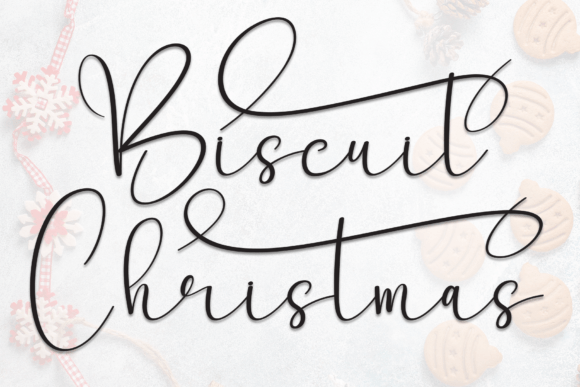
Biscuit Christmas Font: A Stylish and Nostalgic Handwritten Font for Your Holiday Designs
Are you looking for a font that can add a touch of nostalgia and style to your holiday designs? Look no further than the Biscuit Christmas font. This gorgeous and bold handwritten font is crafted to give your headlines and logotype projects a stylish touch. In this article, we’ll take a closer look at the Biscuit Christmas font, its features, and how you can use it to elevate your holiday designs.
What is Biscuit Christmas Font?
Biscuit Christmas is a bold and stylish handwritten font that is perfect for adding a touch of nostalgia to your designs. The font is designed to read as strong, confident, and dynamic, making it perfect for headlines and logotype projects. With its unique and elegant lettering style, Biscuit Christmas is sure to make your designs stand out from the crowd.
Features of Biscuit Christmas Font
The Biscuit Christmas font comes with a range of features that make it perfect for holiday designs. Some of its key features include:
- Bold and stylish lettering: The Biscuit Christmas font features bold and stylish lettering that is perfect for headlines and logotype projects.
- Nostalgic feel: The font has a nostalgic feel that is perfect for holiday designs and adds a touch of warmth and coziness to your projects.
- Handwritten style: The Biscuit Christmas font is a handwritten font, which gives it a personal and unique touch.
- Dynamic and confident: The font reads as strong, confident, and dynamic, making it perfect for headlines and logotype projects.
How to Use Biscuit Christmas Font in Your Holiday Designs
The Biscuit Christmas font is perfect for a range of holiday designs, including:
- Holiday cards and invitations: Use the Biscuit Christmas font to add a touch of style and nostalgia to your holiday cards and invitations.
- Logos and branding: The font is perfect for logos and branding projects, especially for holiday-themed businesses.
- Social media graphics: Use the Biscuit Christmas font to add a touch of holiday cheer to your social media graphics.
- Packaging and labels: The font is perfect for packaging and labels, especially for holiday-themed products.
Tips for Using Biscuit Christmas Font
Here are some tips for using the Biscuit Christmas font in your holiday designs:
- Use it sparingly: The Biscuit Christmas font is bold and stylish, so use it sparingly to avoid overwhelming your designs.
- Pair it with other fonts: Pair the Biscuit Christmas font with other fonts to create a unique and interesting contrast.
- Experiment with colors: Experiment with different colors to find the perfect combination for your holiday designs.
- Keep it simple: Keep your designs simple and clean to let the Biscuit Christmas font shine.
The Biscuit Christmas font is a gorgeous and bold handwritten font that is perfect for adding a touch of nostalgia and style to your holiday designs. With its unique and elegant lettering style, Biscuit Christmas is sure to make your designs stand out from the crowd. Whether you’re designing holiday cards and invitations, logos and branding, social media graphics, or packaging and labels, the Biscuit Christmas font is the perfect choice.
- What is the Biscuit Christmas font?: The Biscuit Christmas font is a bold and stylish handwritten font designed for holiday designs.
- What are the features of the Biscuit Christmas font?: The font features bold and stylish lettering, a nostalgic feel, a handwritten style, and a dynamic and confident tone.
- How can I use the Biscuit Christmas font in my holiday designs?: You can use the Biscuit Christmas font in holiday cards and invitations, logos and branding, social media graphics, and packaging and labels.
- What are some tips for using the Biscuit Christmas font?: Use it sparingly, pair it with other fonts, experiment with colors, and keep your designs simple and clean.